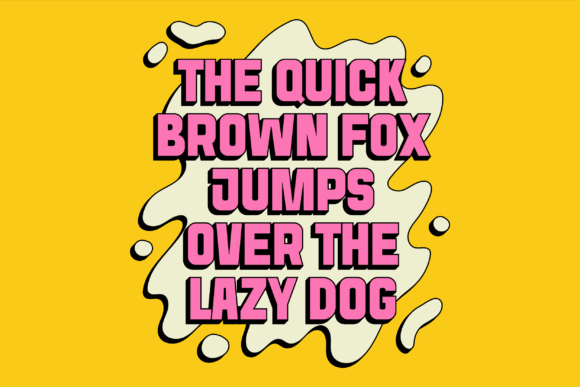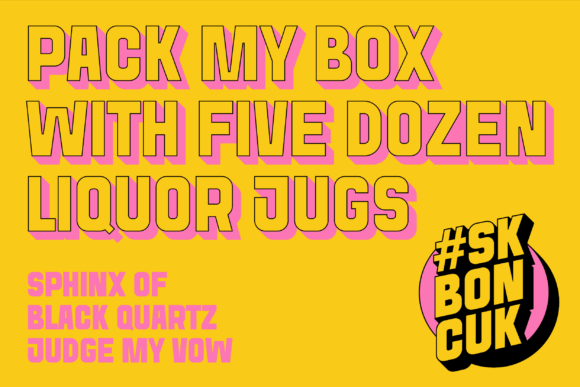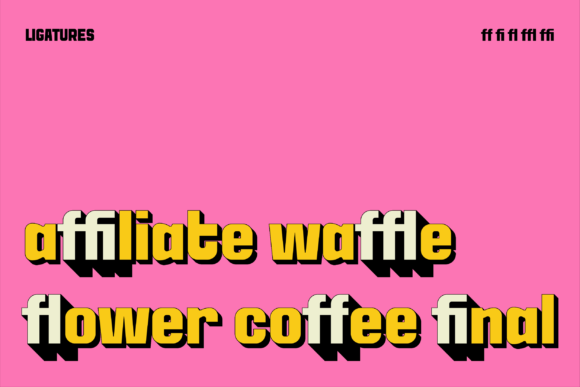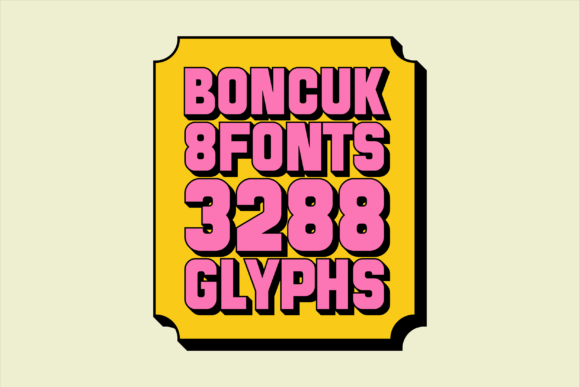
SK Boncuk Font
SK Boncuk is a bold and adaptable display font. No matter the topic, this font will be an incredible asset to your fonts’ library, as it has the potential to elevate any creation.